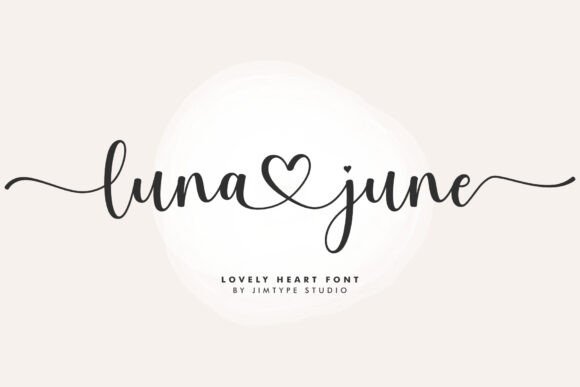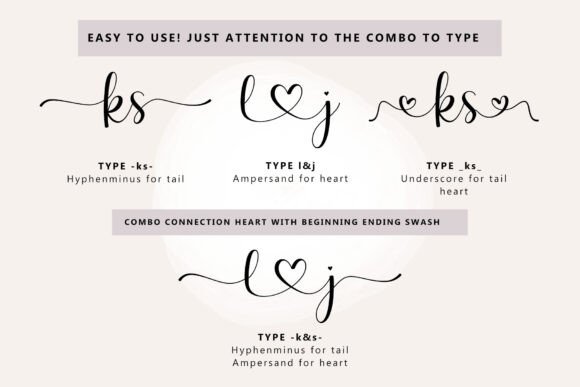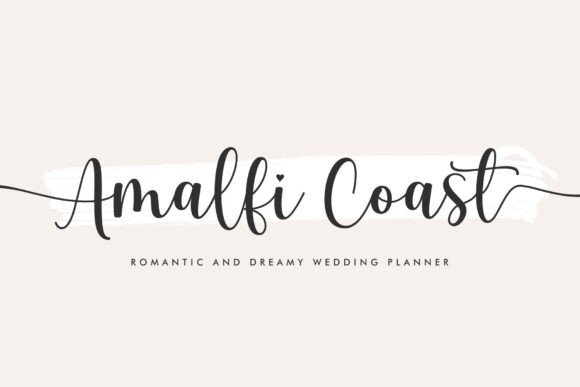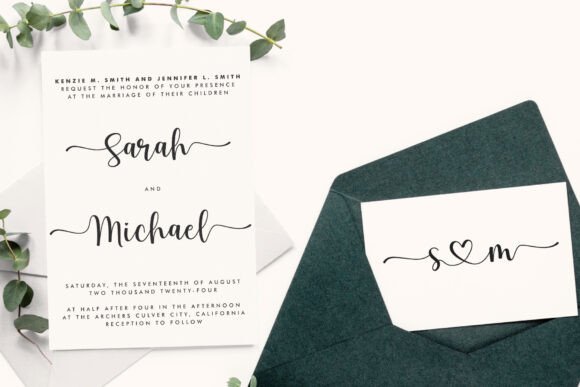
Luna June Font: Sweet Calligraphy Script for Wedding & Logo Design
About the Luna June Font
The Luna June Font is here to transform your projects with its distinctive character and style. Luna June is a sweet, lovely, and modern calligraphy font with a connected heart. This beautiful script is particularly well suited for wedding invitations, logos, branding, watermarks, save-the-date cards, and feminine branding.
Luna June’s elegant, yet approachable style makes it ideal for branding projects requiring a touch of sophistication and warmth, particularly for businesses in the fashion, beauty, or wedding industries. It excels in logo design, short headlines, and social media graphics where its delicate curves create a memorable visual impact. However, its connected nature makes it less suitable for body text or lengthy paragraphs, impacting readability.
For optimal visual harmony, pair Luna June with a clean sans-serif font like Lato or Montserrat for body text, ensuring strong contrast and balanced readability. Alternatively, a classic serif like Garamond or a more geometric sans-serif like Futura can provide a complementary level of formality, depending on the desired overall mood.
The font’s core personality is undeniably feminine and romantic, conveying a sense of delicate charm and timeless elegance. Avoid pairing it with overly bold or playful fonts that might clash with its inherent grace.
Luna June Font Usage Examples
Luna June Font Example